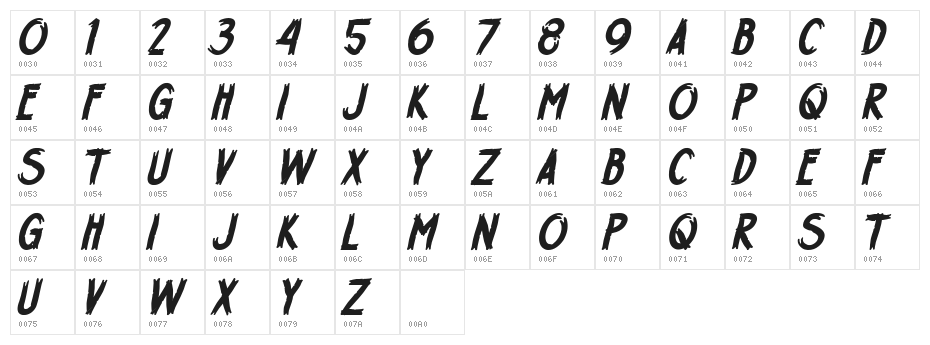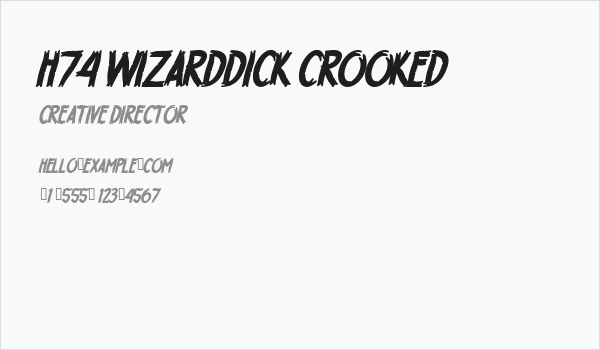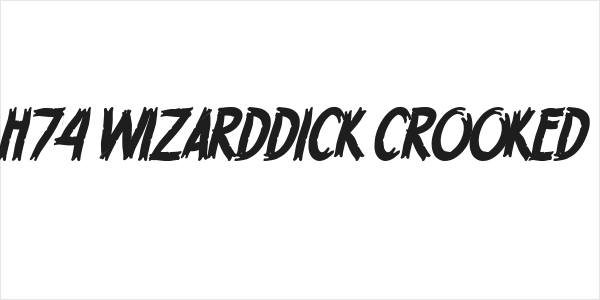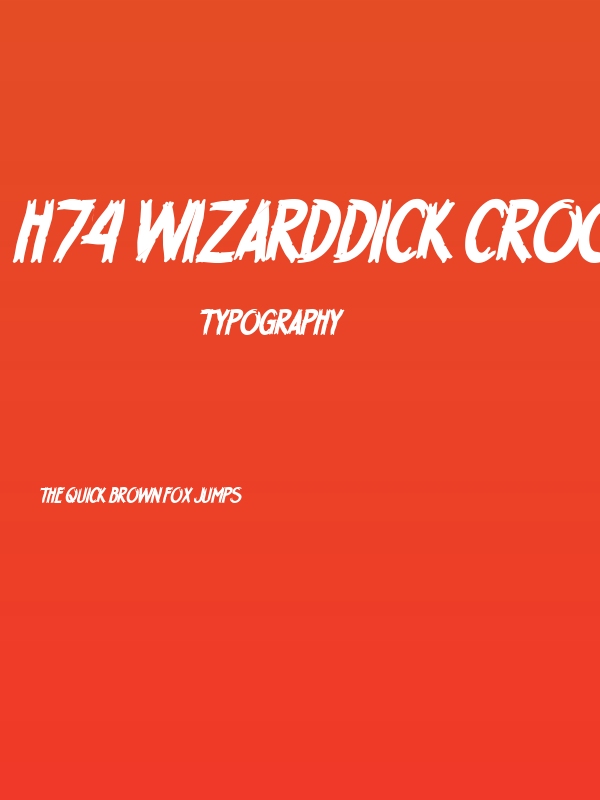
H74 WizardDick Crooked Font
H74 WizardDick Crooked Description
This font features a bold and dynamic style with a hand-drawn appearance. The characters are slightly slanted, giving a sense of movement and energy. The strokes are thick and uneven, adding a rugged and edgy feel. The uppercase and lowercase letters maintain a consistent style, with the uppercase being more pronounced. The numbers and special characters follow the same bold and expressive design, making them stand out. This font is perfect for projects that require a strong and impactful visual presence.
| Overall Style | Modern, Edgy |
| Proposed Projects | Ideal for posters, album covers, graffiti art, and branding that requires a bold statement. |